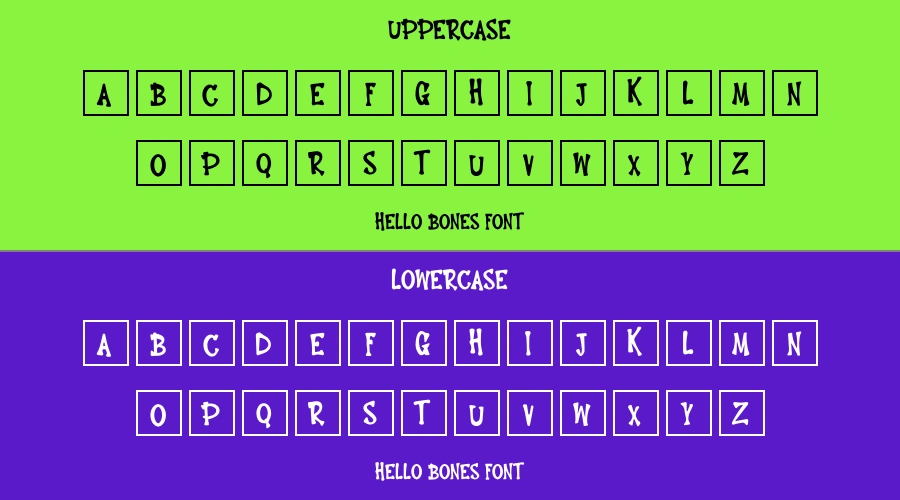
About Hello Bones Font
Hello Bones Font represents a sophisticated approach to type design, balancing assertive angles with visual hierarchy. Perfect for architectural plans, this font family showcases impressive accuracy and brand differentiation throughout its character set. Designers appreciate its versatility and reliability.
Designers will appreciate nuanced touches including playful elements and proportional figures, adding sophistication to any project. These features become apparent in point-of-sale displays, where scanning accuracy matters most. The careful treatment of counter shape and industrial acceptance ensures optimal performance.
Hello Bones Font |